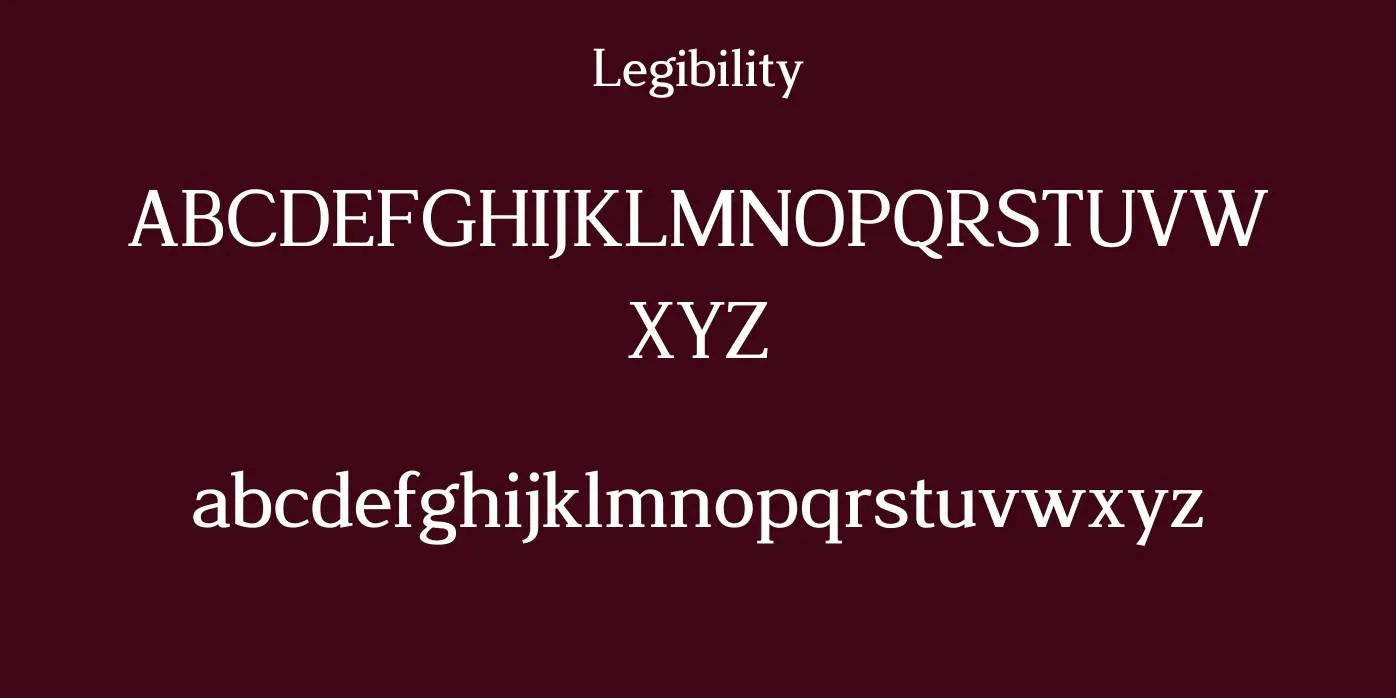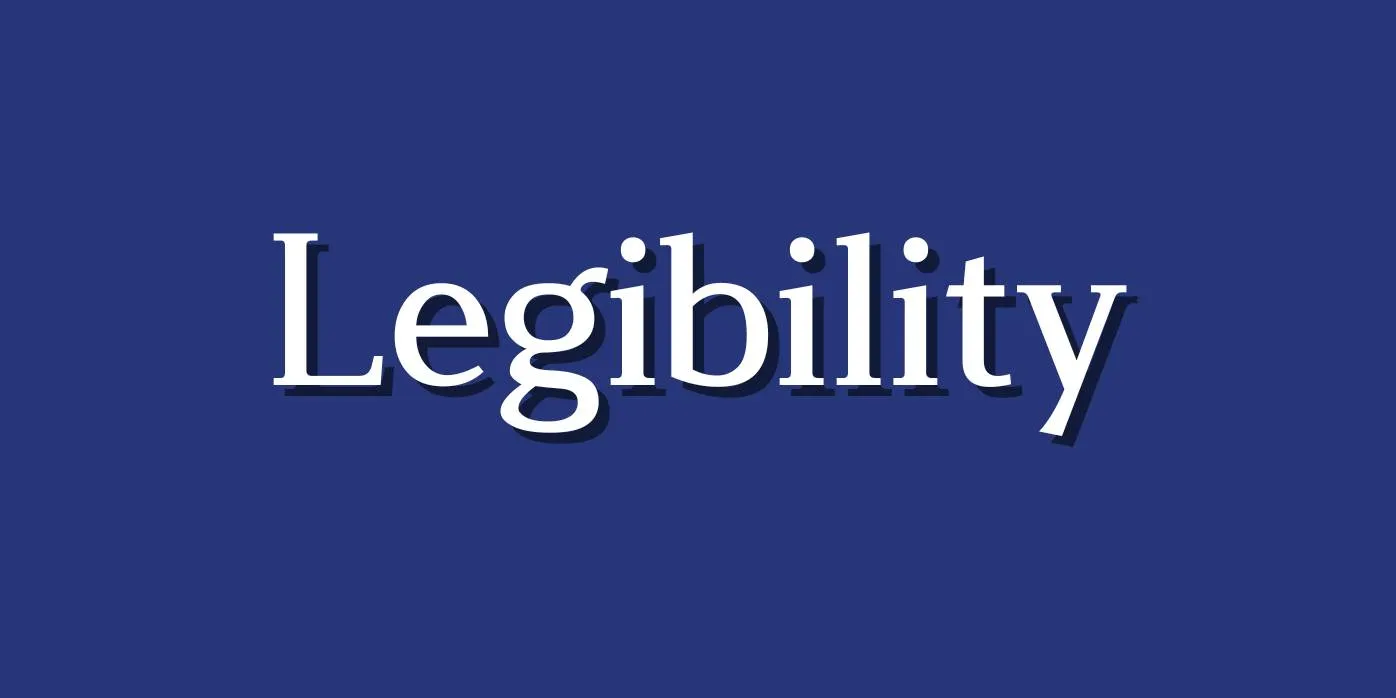
Legibility Font
Legibility Font was designed by Dan P. Lyons and it is a very neat and amazing Serif font. It has many different features that will make it look good for your projects. This is an easy to read font that increases the readability of your project.
Usage You can easily utilize it to make banners, posters, flyers, and brochures. Furthermore, it is also commonly used for making YouTube thumbnails and other social media posts. It is also good for making logo design in Adobe PhotoShop.  An online generator tool supports this font which changes the texture of your simple text into this font by copying and pasting the text in it. You can also use this font with other fonts by pairing them.